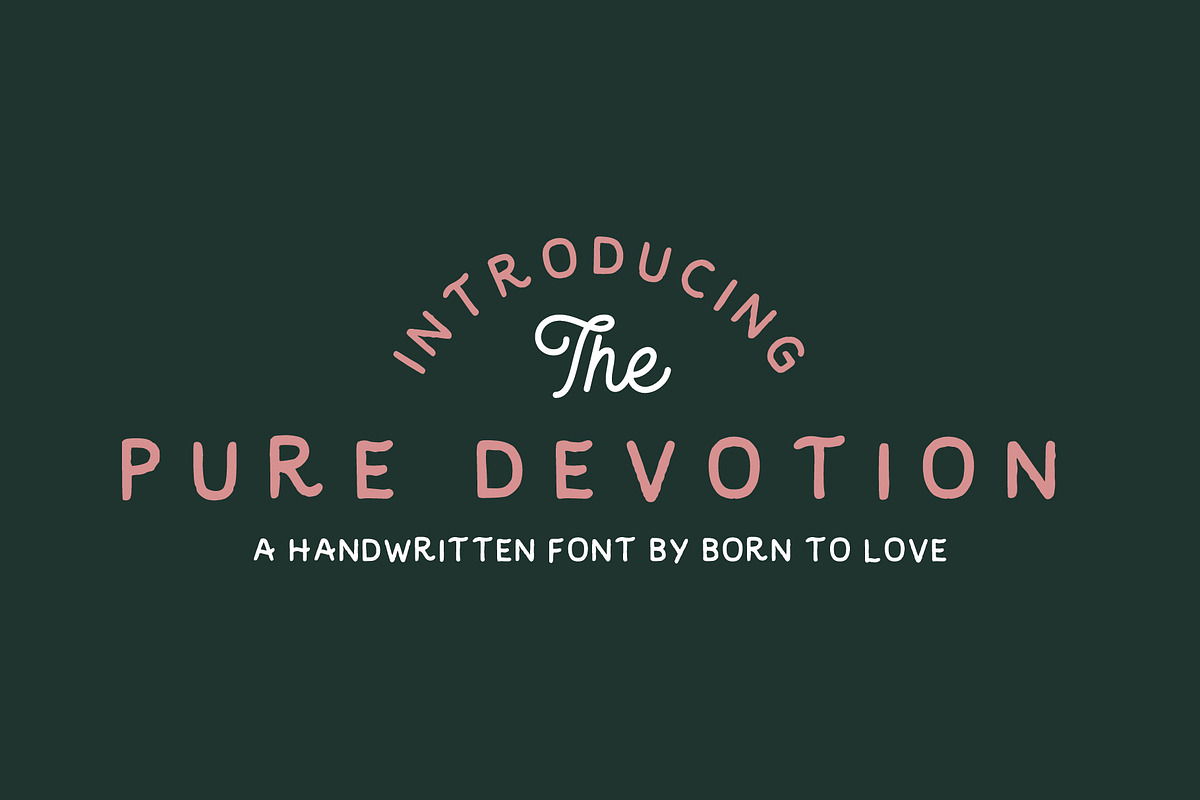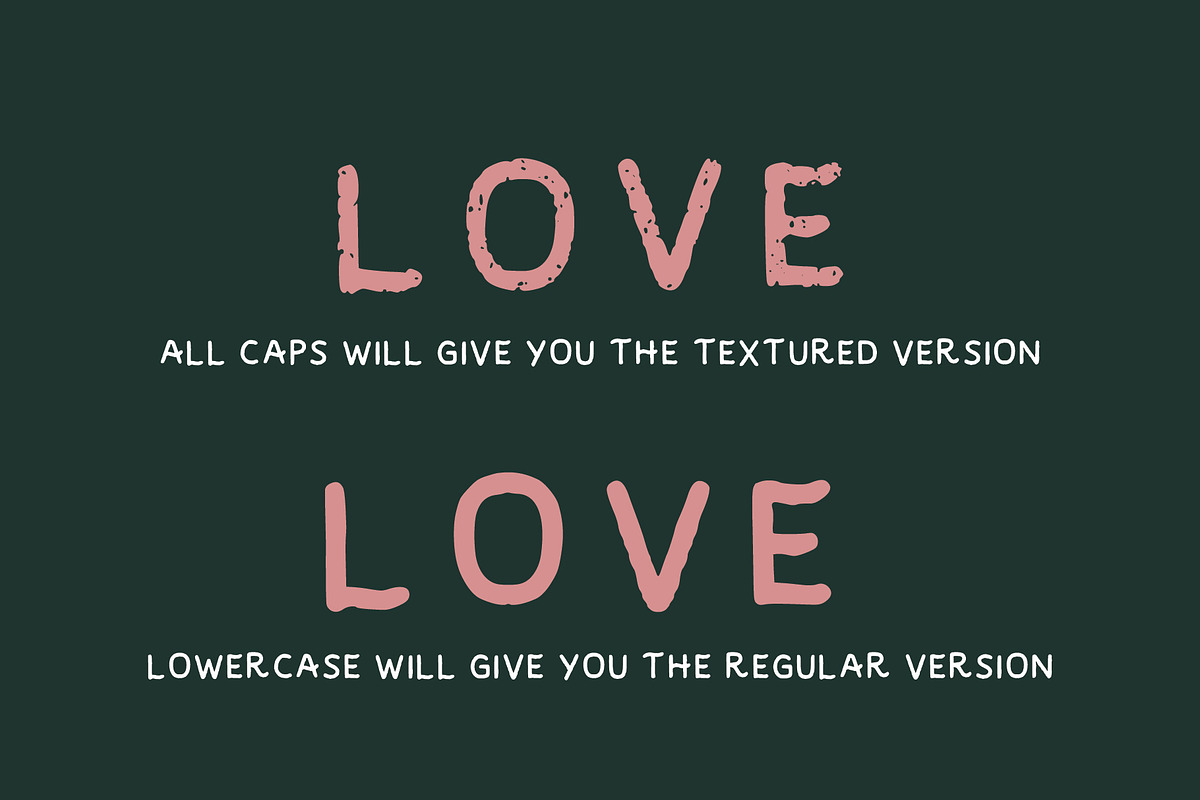
Pure Devotion - Typeface
I'm very excited to introduce my handwritten font inspired by the song "Pure Devtion" by the band Turnover.
Pure Devotion - Typeface by Born to Love fits naturally into Branding, posters, packaging, typography.